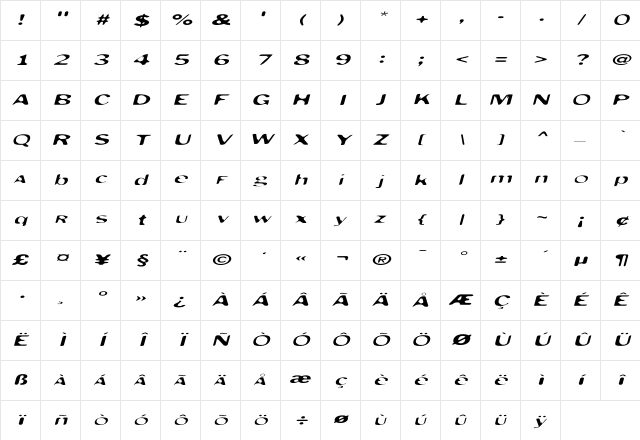
MonkeyCaughtStealing Regular Free Font
MonkeyCaughtStealing Regular
MonkeyCaughtStealing Family
Design Context for MonkeyCaughtStealing
MonkeyCaughtStealing is a composed and adaptable typeface that performs quietly and consistently across a wide range of design contexts.